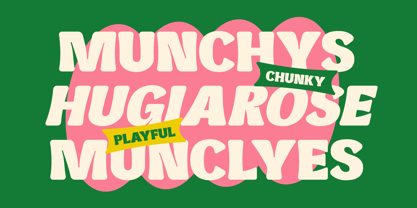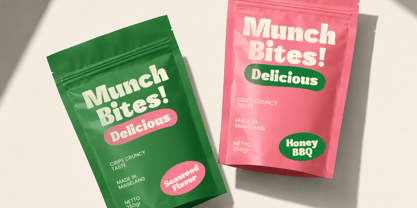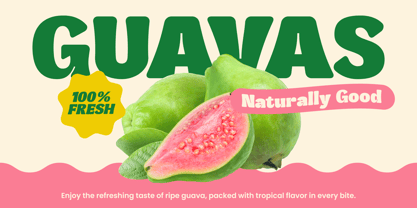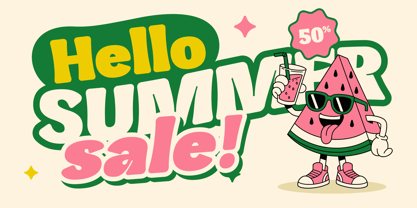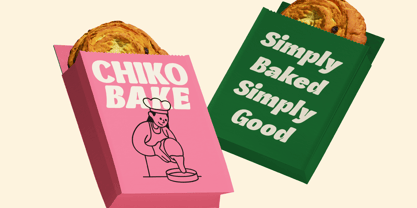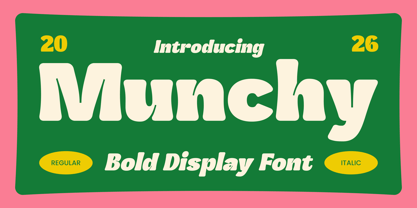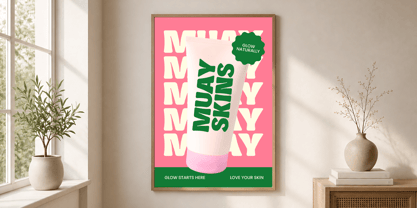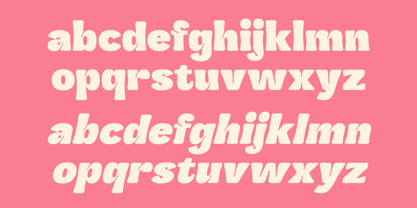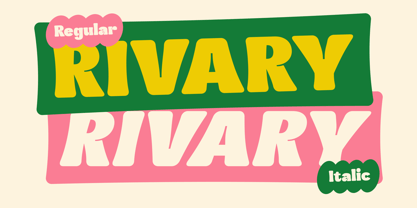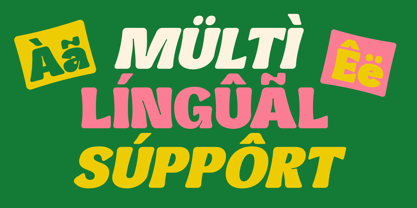
Munchy
by Steptype
The Munchy Font Family was designed by Mhd Husaini and published by Steptype. Munchy contains 2 styles and family package options. More about this family
A playful and energetic display font featuring thick rounded letterforms, bold shapes, and a friendly retro aesthetic. Designed to create a fun, youthful, and eye-catching impression, this font works well for food packaging, restaurant branding, posters, stickers, kids' designs, and modern vintage-style graphics. Its chunky appearance gives a strong visual impact while maintaining a cheerful and approachable feel.
Font Characteristics
• Bold & heavy letter shapes
• Rounded, soft edges
• Playful and expressive style
• Retro-inspired typography
• Cartoon / mascot-friendly appearance
• High visual impact for headlines
• Casual but modern branding feel
• Suitable for fun lifestyle designs
Recommended Uses
• Food packaging
• Burger & snack branding
• Restaurant logos
• Menu designs
• Promotional posters
• Sticker designs
• Kids & playful branding
• Social media graphics
• Merchandise design
Designers: Mhd Husaini
Foundry: Steptype